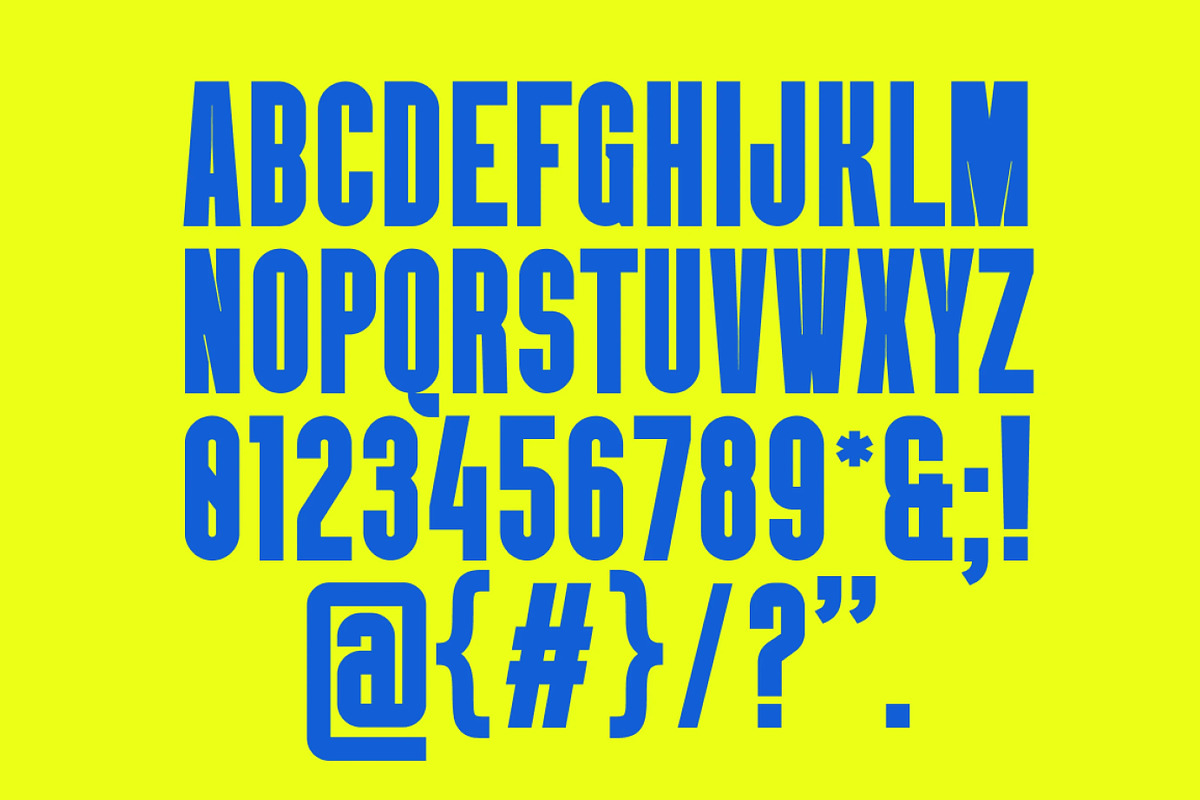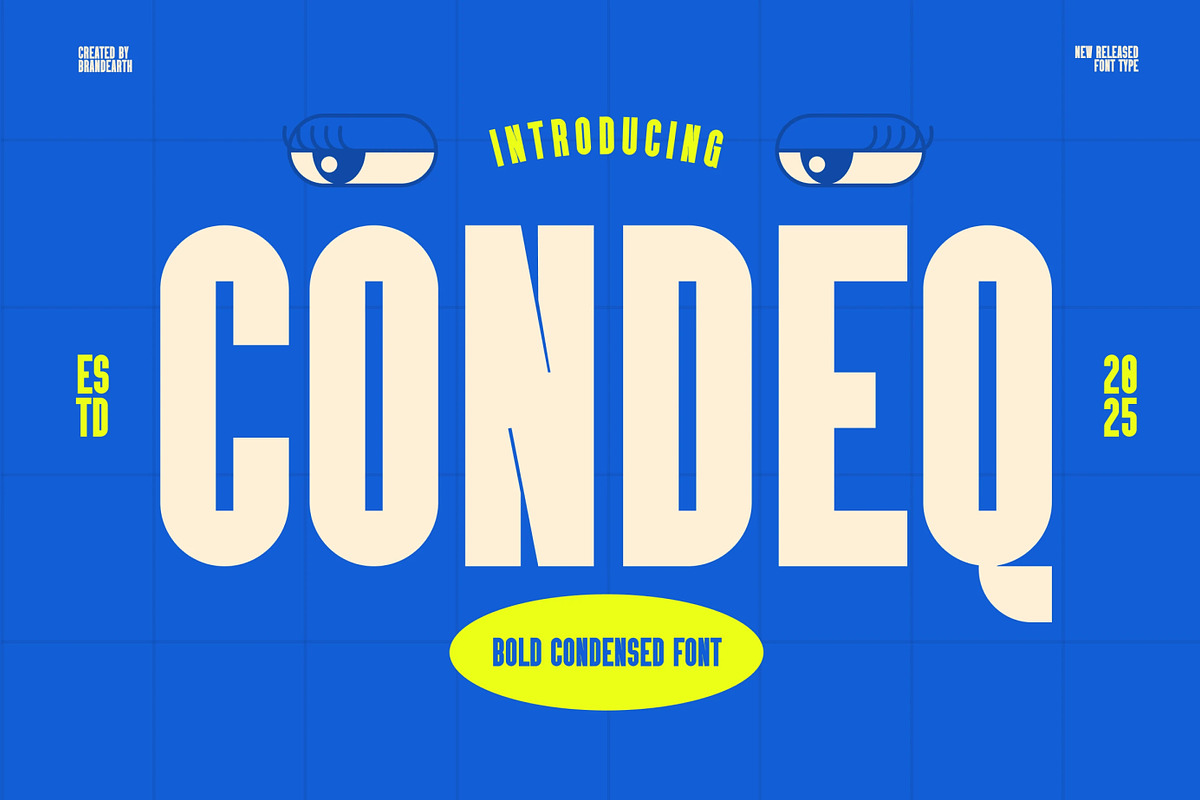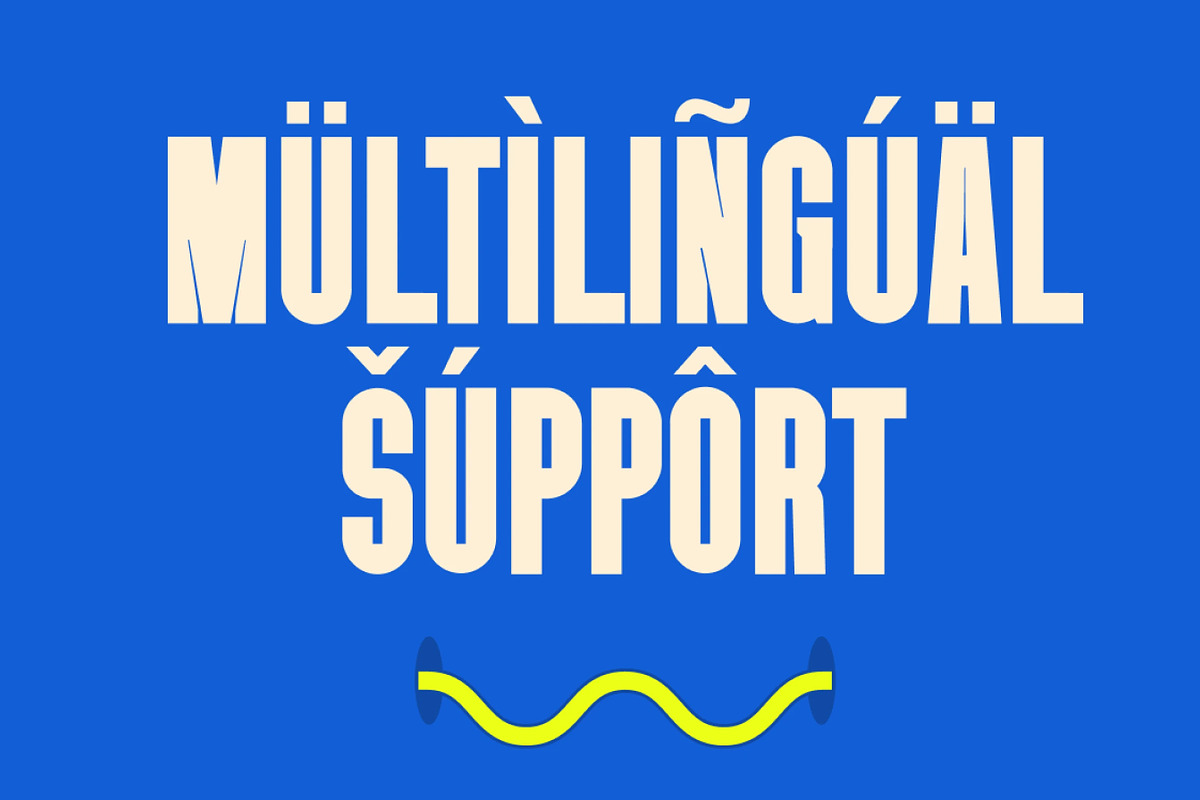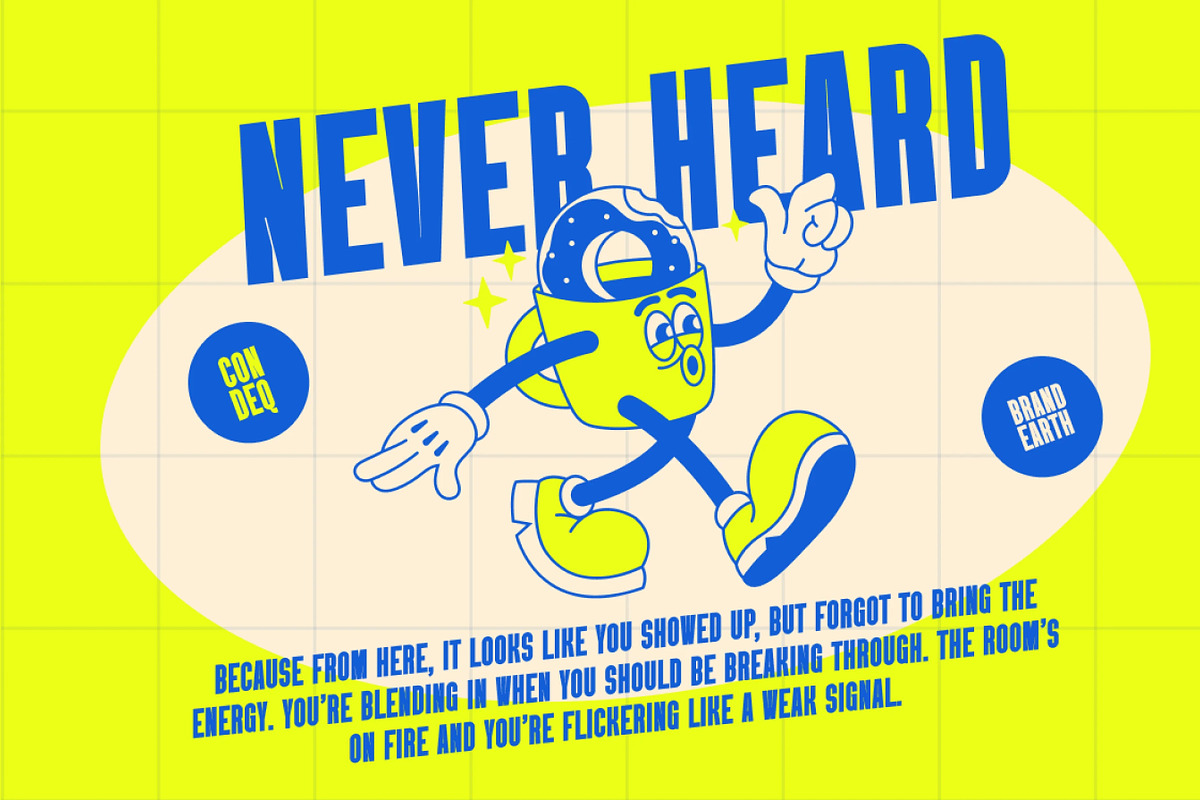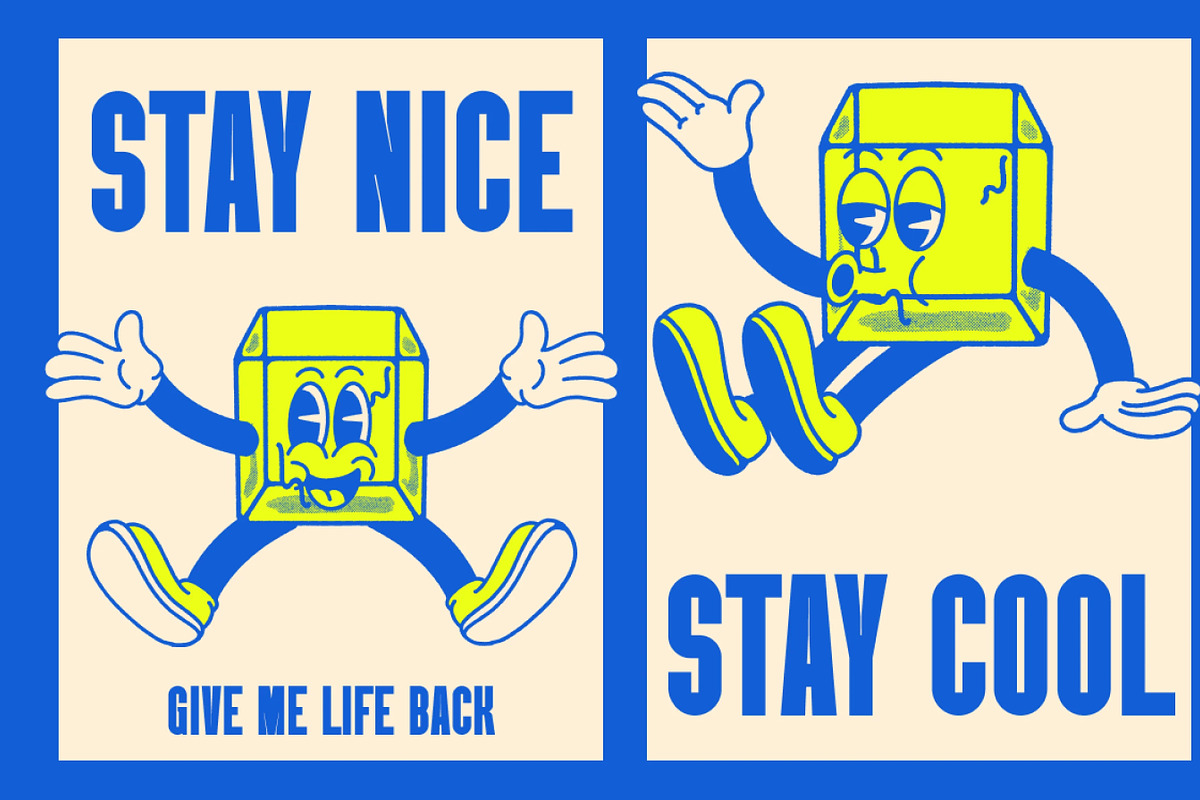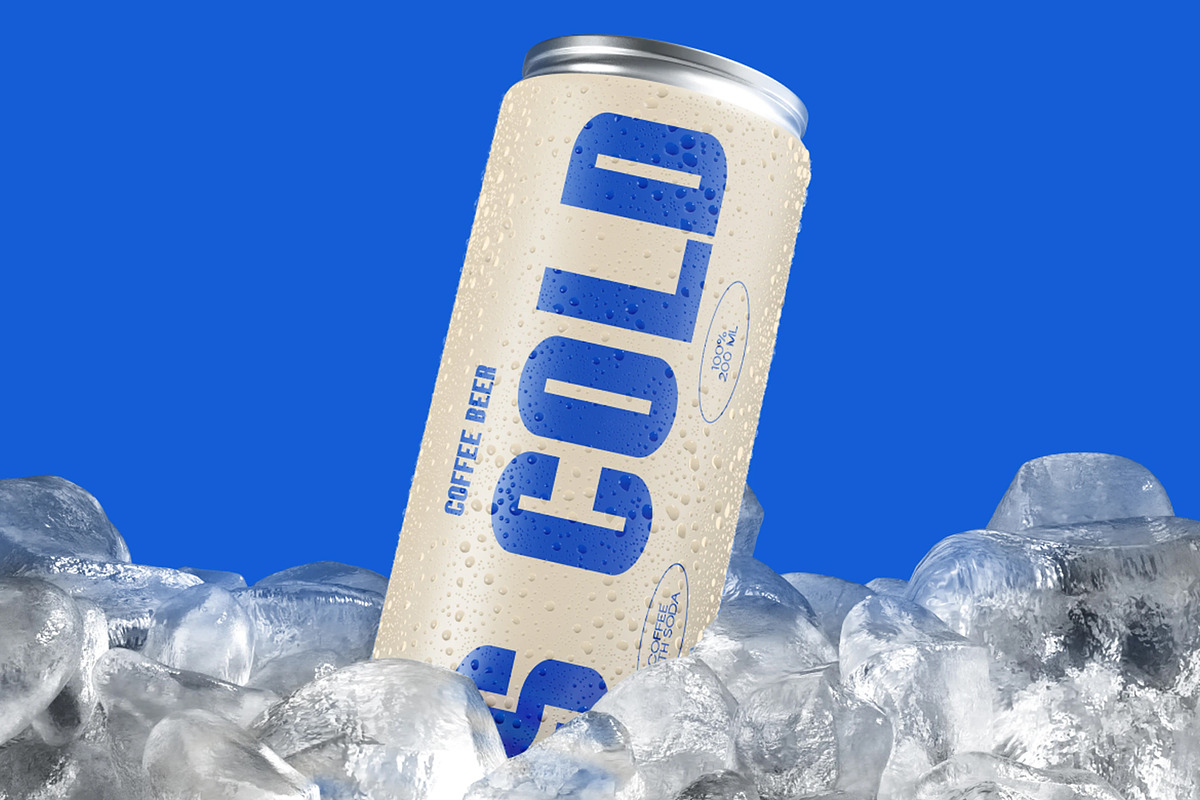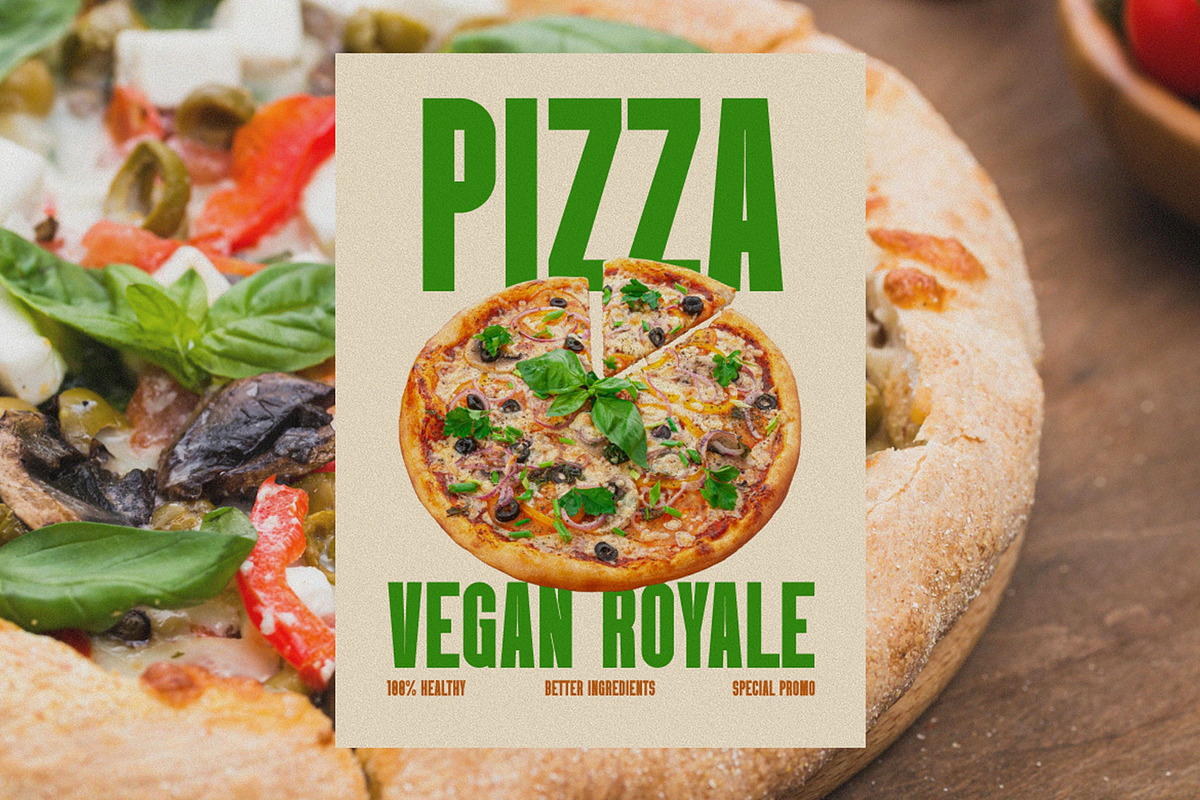
Condeq – Bold Condensed Display Font
Condeq is a bold condensed display font designed to make a powerful visual impact. With its narrow proportions and heavy weight, Condeq offers a clean yet assertive look, ideal for designs that demand attention. This all-caps typeface is perfect for posters, editorials, branding, and sports-themed graphics where boldness is key. Whether used in print media or digital campaigns, Condeq ensures clarity and dominance in any layout.
The letterforms in Condeq are built with narrow proportions and heavy weight, creating a tight, assertive rhythm that gives the typeface its bold, commanding character. It features a high-impact display quality that's perfect for poster design, sports graphics, and urban branding.
With its condensed structure and clean precision, Condeq bridges the gap between raw boldness and refined clarity. It delivers a dominant, attention-grabbing feel while remaining highly legible, making it ideal for editorial layouts, music cover art, and large-scale signage.